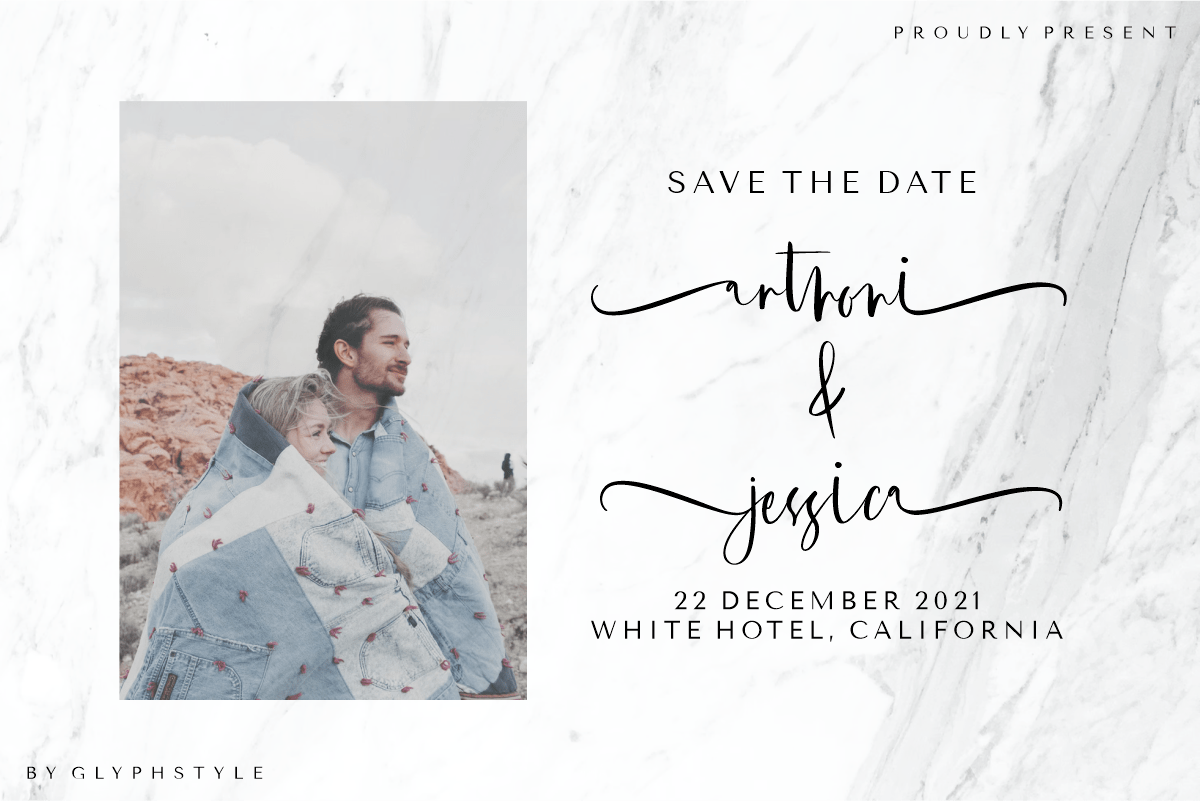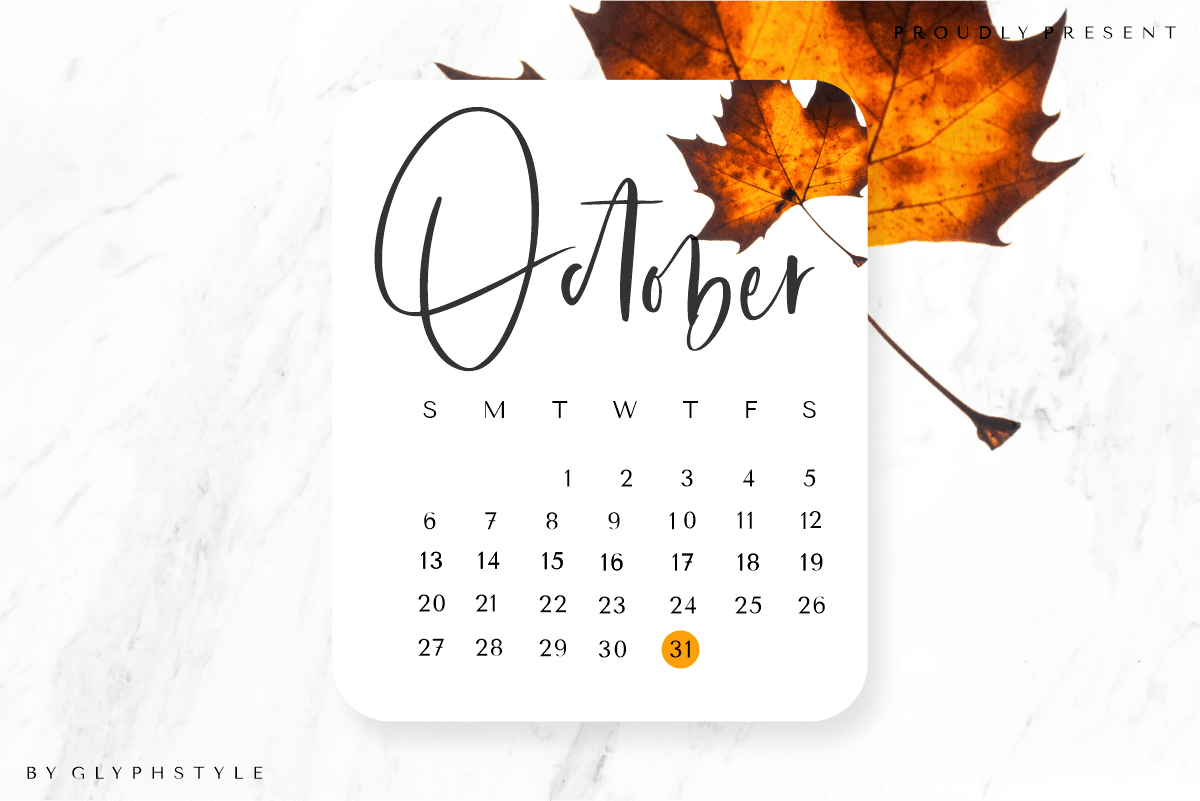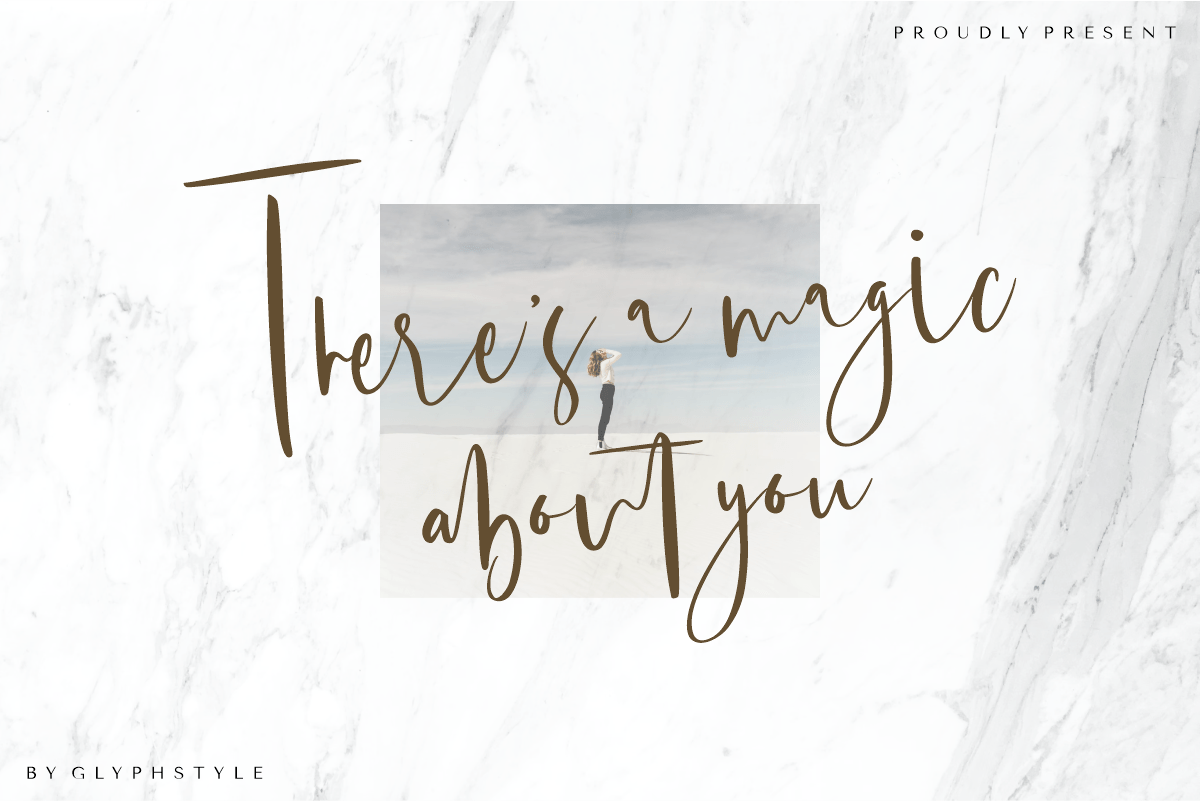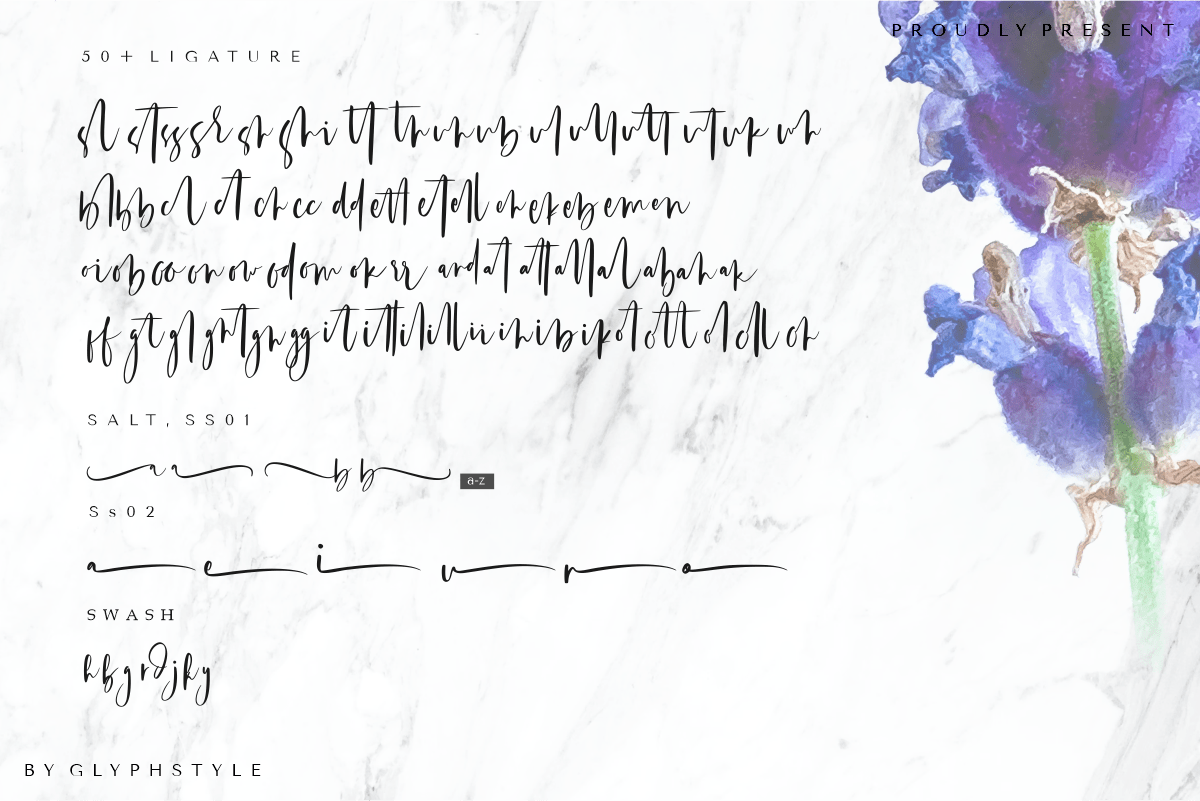
Oishigo Script Font
It’s a freeform handwritten font, it has a tail that goes up and down randomly which makes this font look different and beautiful. This font has many different ligatures, more than 50 ligatures and additional alternates and swashes